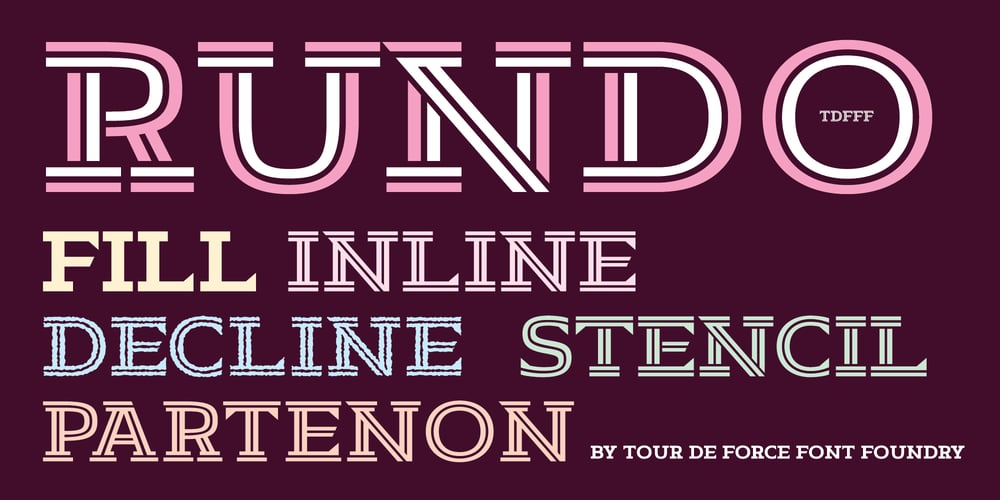
Rundo Font Family was designed by Dusan Jelesijevic and published by Tour De Force. Rundo contains 5 styles and family package options. Rundo is all-caps decorative font family available in 5 styles: Fill, Inline, Decline, Stencil and Partenon.With wide proportions and serifs characteristics for slab serif fonts, Rundo is lively family intended to be used for product names on packages, big titles and outdoor graphics.Comes with standard ligatures as OpenType features.